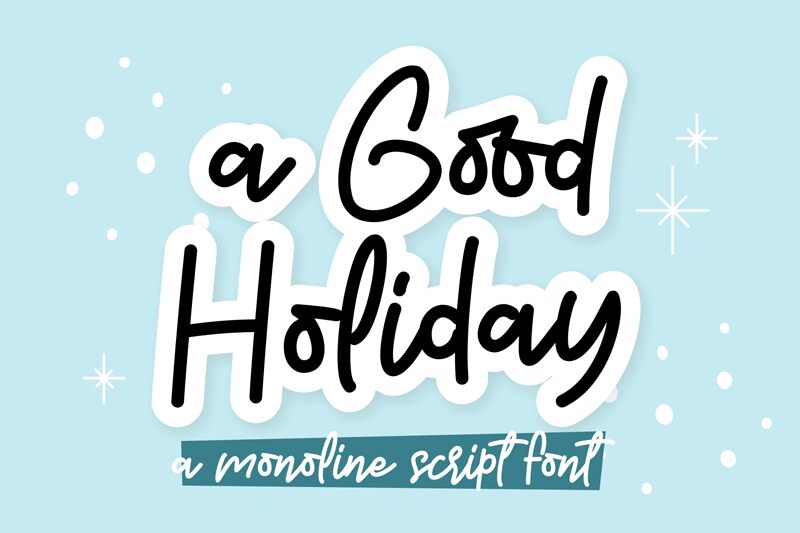
a Good Holiday
Good Holiday, designed by Mabhal Studio, is a delightful handwritten font that adds a touch of whimsy to any project. With its semi-light weight, it exudes an air of playfulness and elegance. Perfect for greeting cards, wedding invitations, and social media graphics, Good Holiday breathes life into your designs. Its flowing curves and authentic strokes capture the essence of a carefree vacation or joyful celebration. Let this versatile font be your go-to choice for projects that require a personal and creative touch. Say goodbye to ordinary typography and embrace the enchantment of Good Holiday.